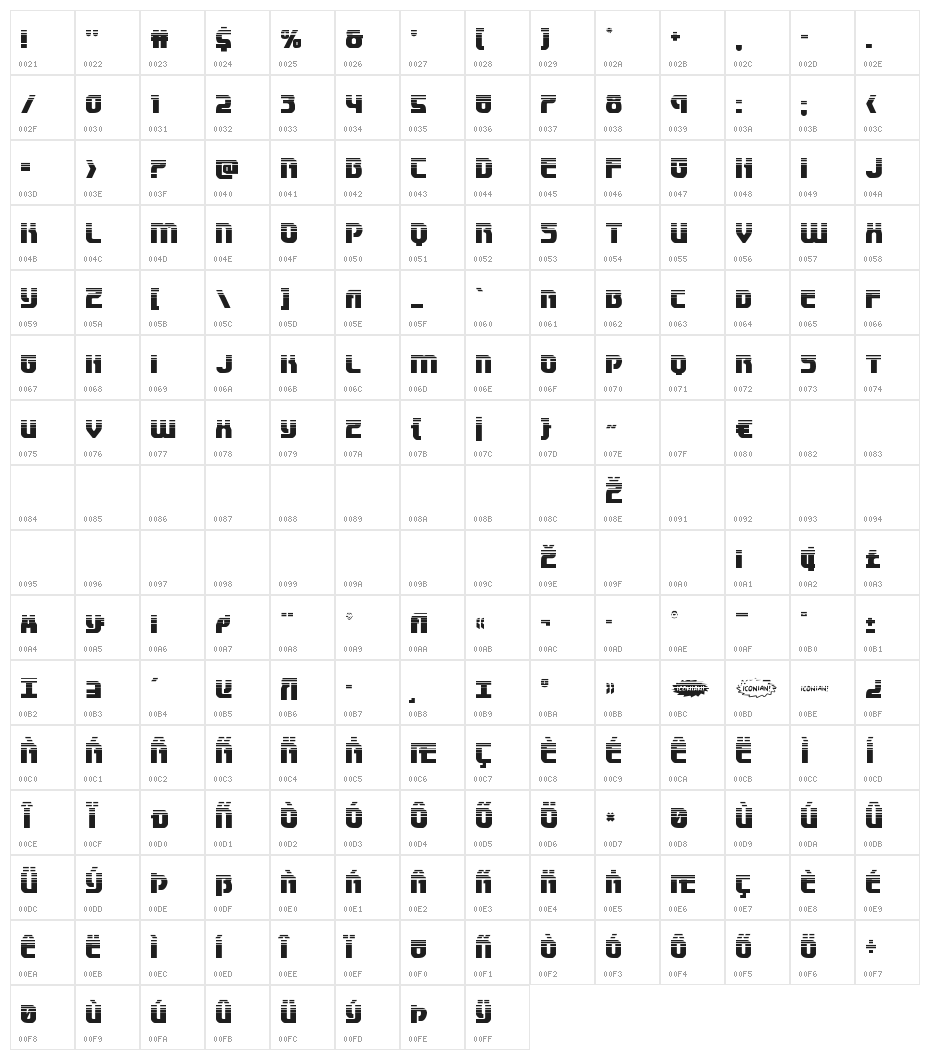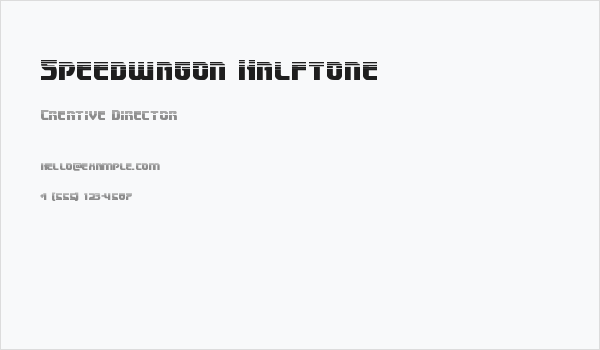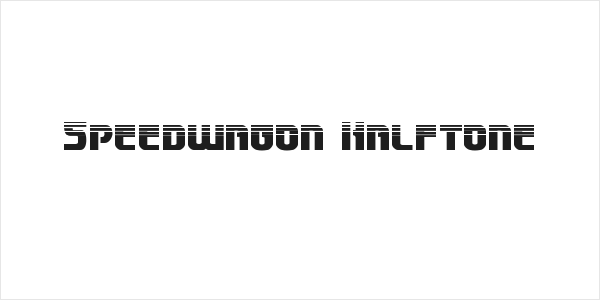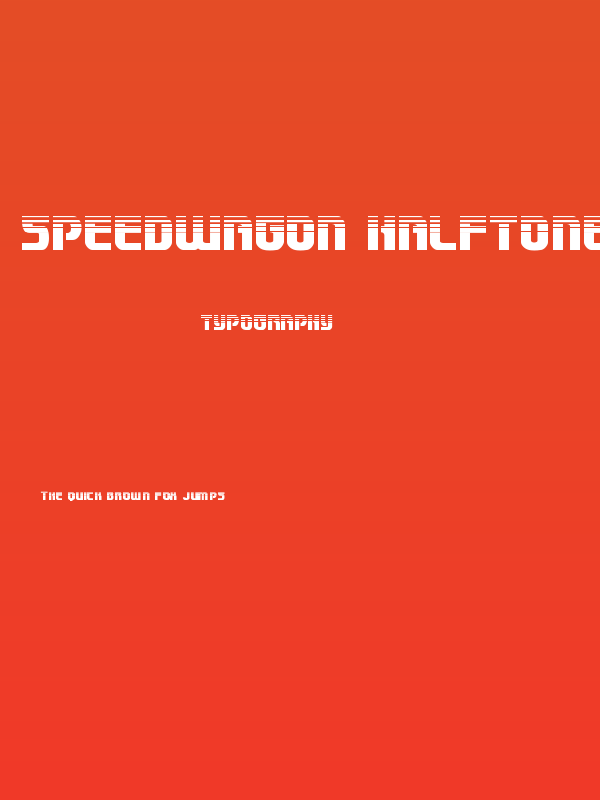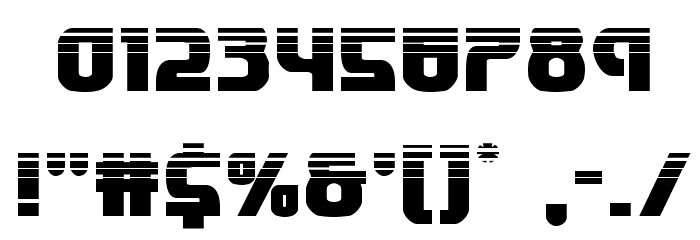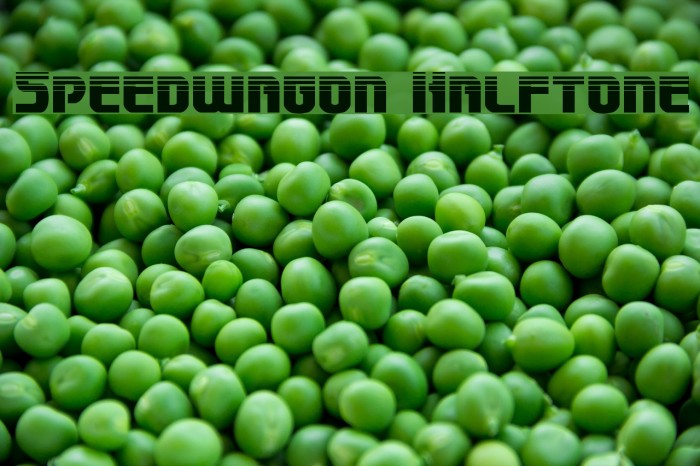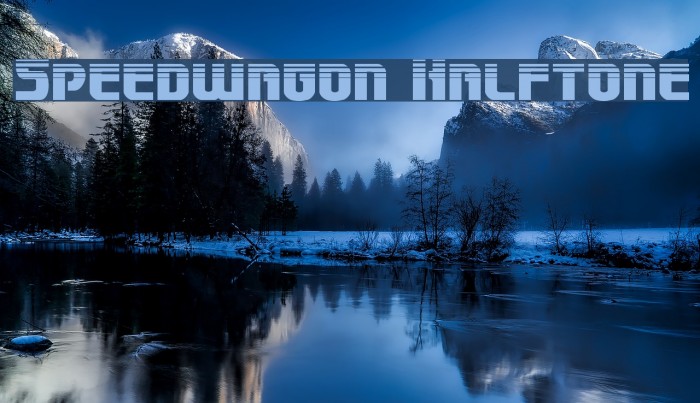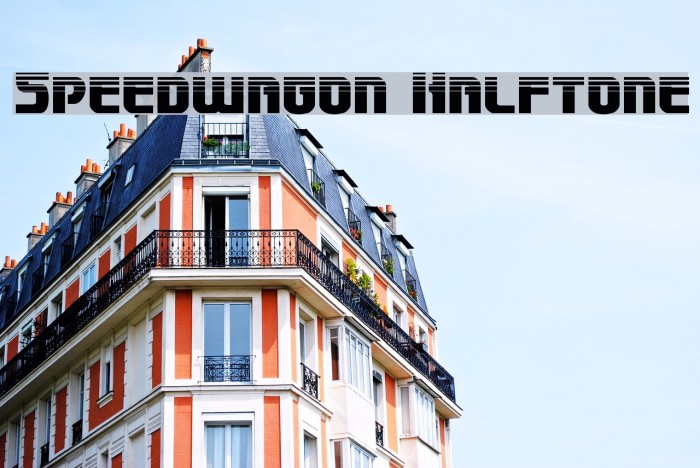
Speedwagon Halftone Font
Speedwagon Halftone Description
This font features a bold and striking design with a halftone effect that gives it a unique, textured appearance. The characters are constructed with solid, block-like forms, and the halftone pattern adds a sense of depth and dimension. The uppercase letters are particularly prominent, with a strong geometric structure that commands attention. The numerals and special characters maintain the same bold style, ensuring consistency across all elements. This font is ideal for projects that require a modern and edgy look, such as posters, album covers, or branding materials.
| Proposed Projects | Ideal for posters, album covers, branding, and any project needing a modern, edgy look. |